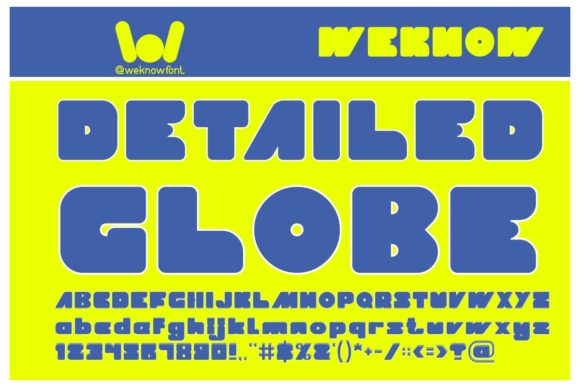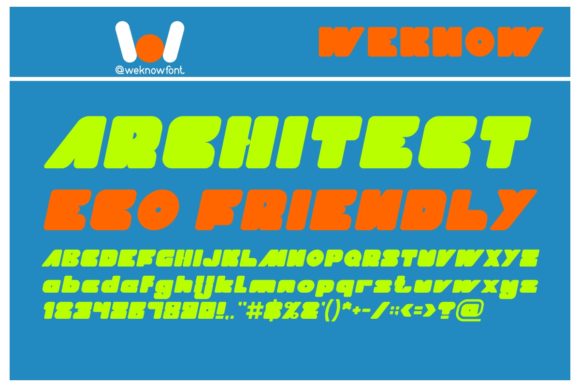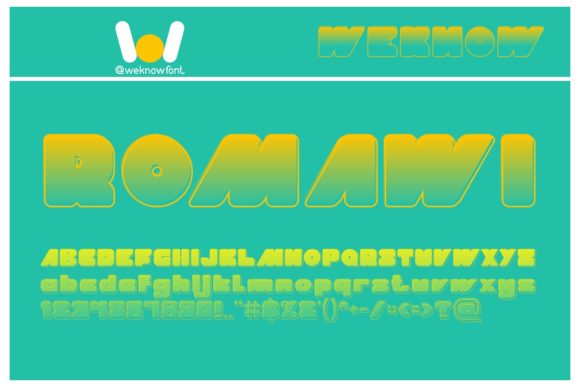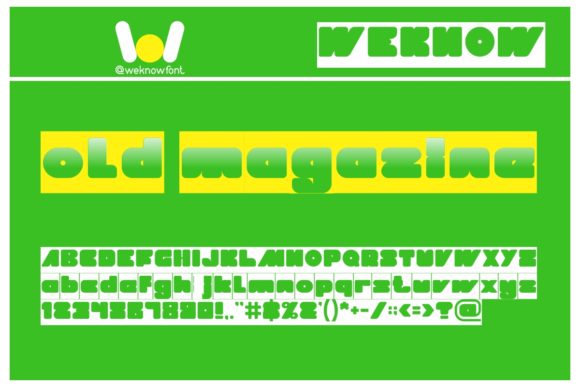
Introduction to Made in Earth Font
Made in Earth is a bold, thick lettered, techno display font.
Add this font to your creative ideas and notice how it will make them stand out .
Key Features of Made in Earth Font
Why Choose Made in Earth Font?
Made in Earth Font offers exceptional quality and versatility, making it a valuable addition to your design toolkit. Whether you’re creating for personal projects or commercial use, Made in Earth Font delivers professional results.